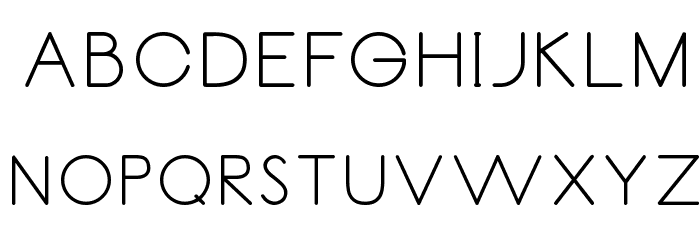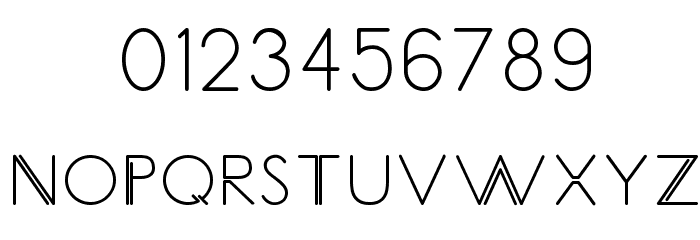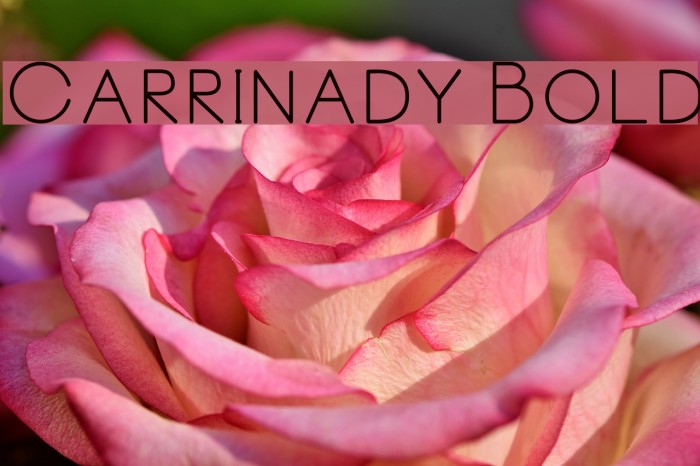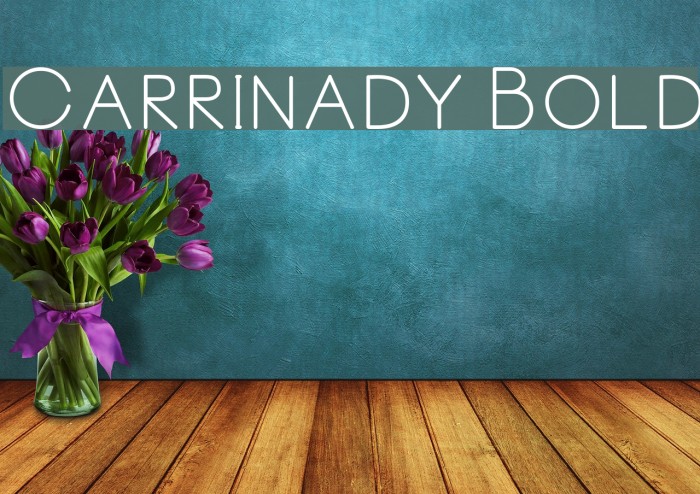
Carrinady Bold Font
This font features a modern and sleek design with geometric influences. The characters are crafted with clean lines and a uniform stroke width, giving it a minimalist and contemporary appearance. The uppercase letters exhibit a unique style with some characters incorporating subtle angular elements, adding a touch of sophistication. The lowercase letters maintain the same geometric aesthetic, ensuring consistency throughout. The numerals are straightforward and align well with the overall design, making them easily legible. This font is versatile, suitable for various design projects that require a modern and clean look.
A modern, geometric font with clean lines and a minimalist style.
- Proposed Projects: Ideal for branding, editorial design, advertising, and digital interfaces.
- Use Case: Headlines, Logos, Branding